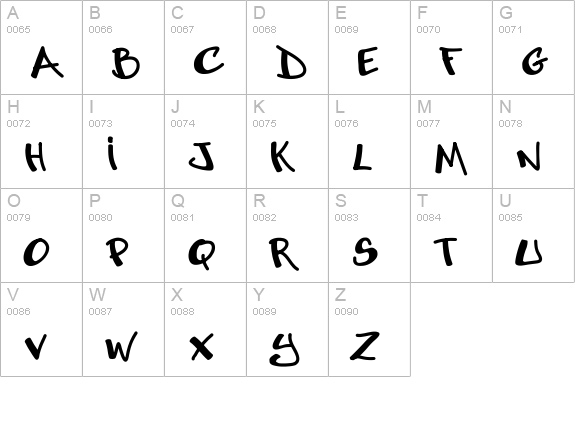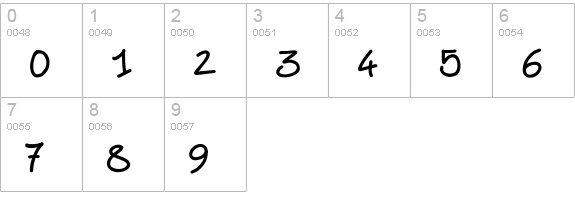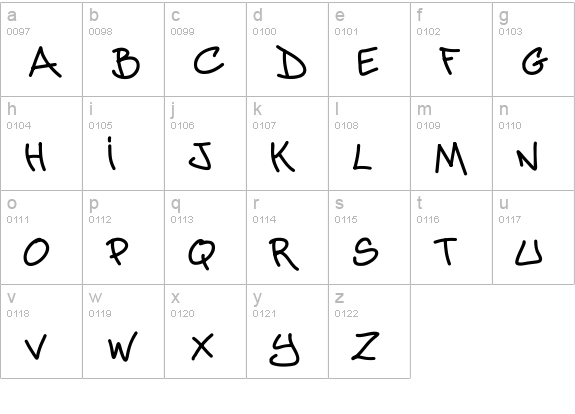
Abuse Font Details
Below you can preview Abuse in uppercase [A-Z], lowercase [a-z] and numbers [0-9]. You can also read the author's notes and license information before downloading.
Abuse font is a striking and bold typeface that exudes power and strength with its sharp edges and modern design. This font is perfect for making a statement and commanding attention in your designs. Its unique and edgy style makes it ideal for projects that require a touch of attitude and boldness. What's even better is that Abuse font is completely free to download at FontsMarket.com, allowing you to add this impactful typeface to your collection without any cost. Whether you're working on a poster, logo, or any other design project, Abuse font will definitely make a strong impression and elevate your work to the next level. Download it now and unleash the power of this dynamic font in your designs.